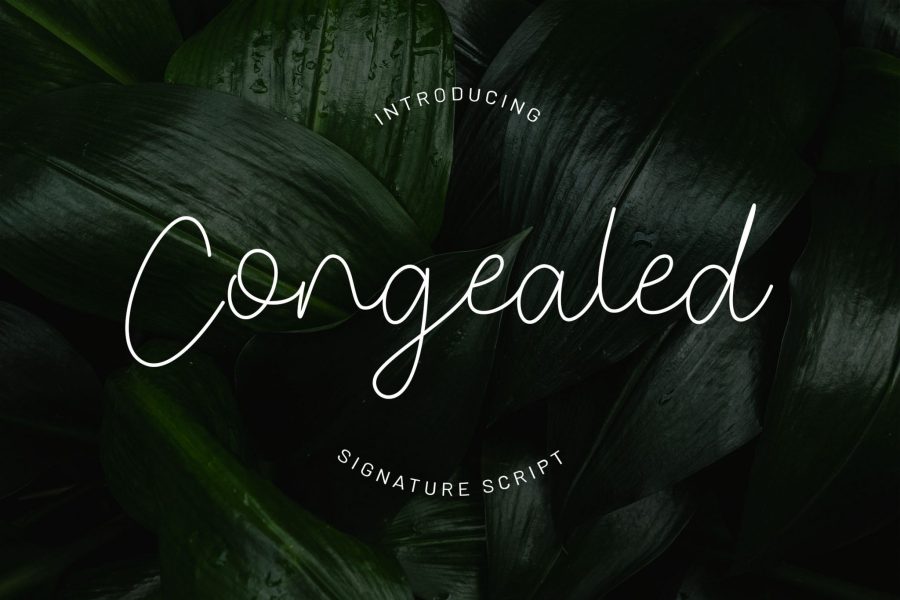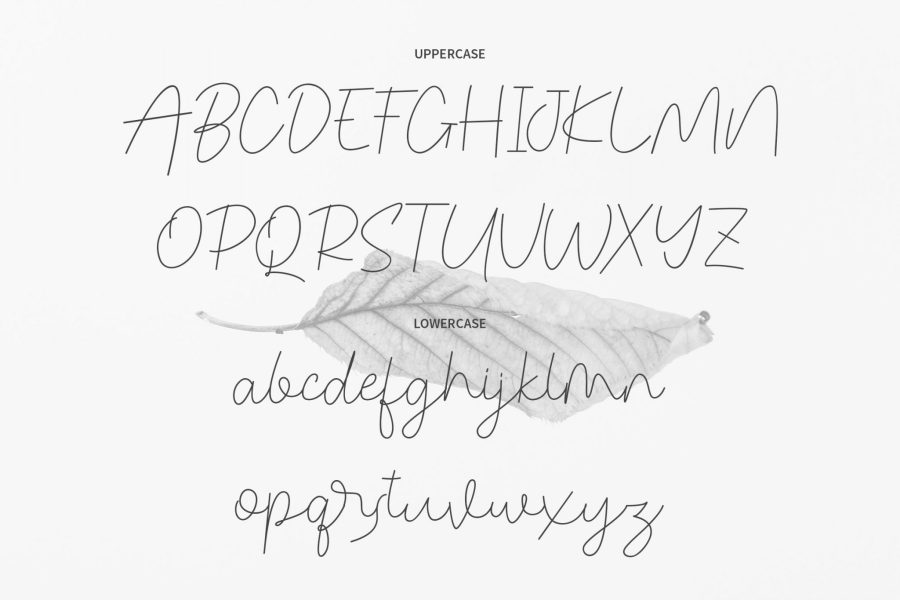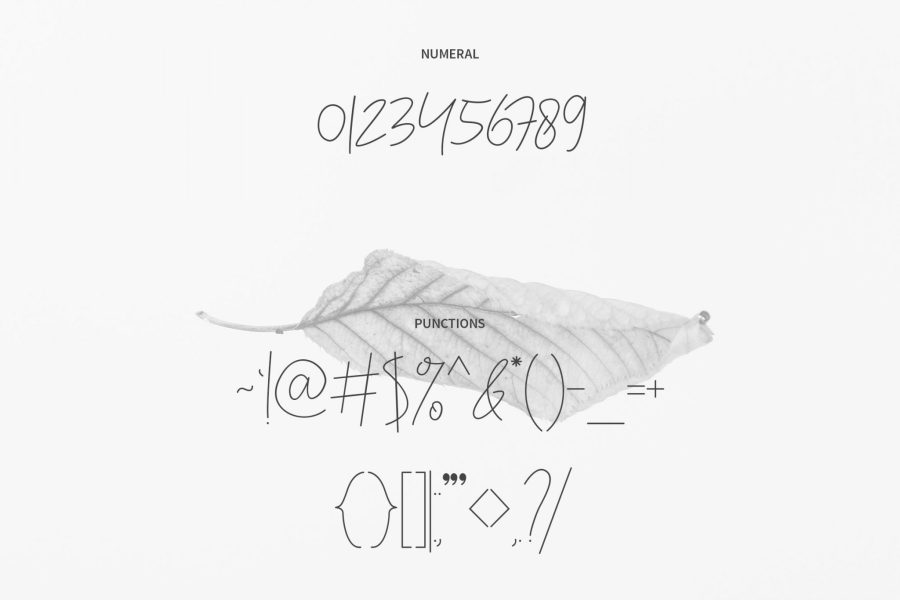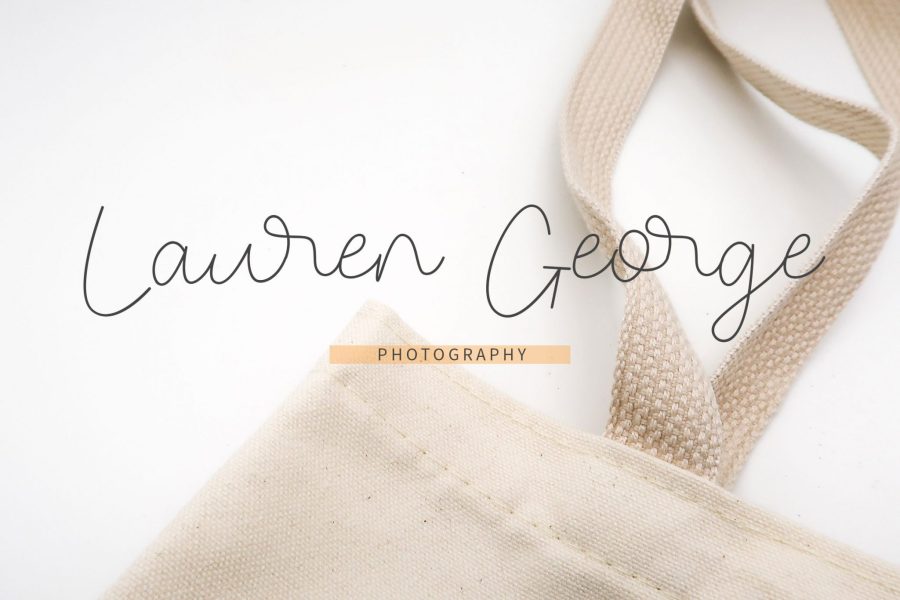
Congealed is a signature script font, this font looks classy, luxury, elegant, romantic, and awesome.
Congealed script Font is the best choice for your professional design projects, including : logo, poster design, t-shirt, headline, flyer, cd cover album, quotes, business card, branding, magazines, social media, advertisements, product designs, or something that need signature or beauty looks.